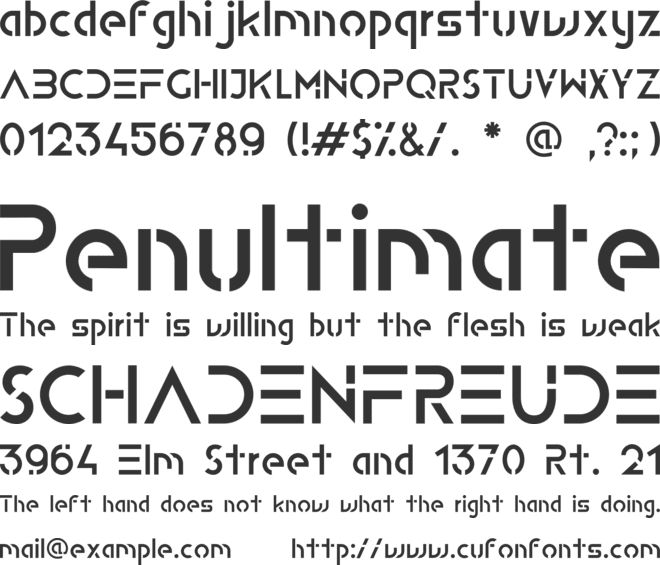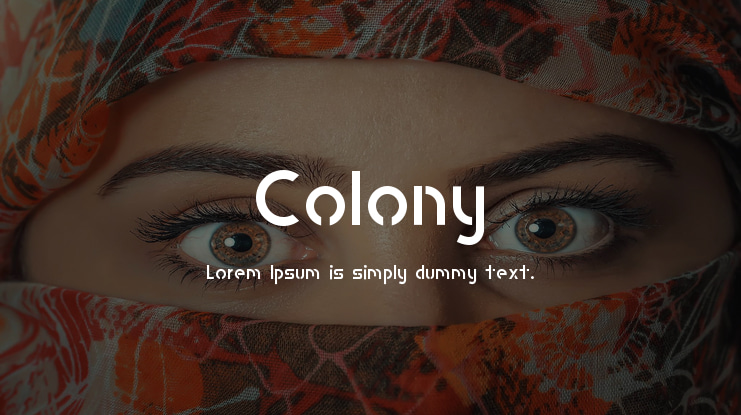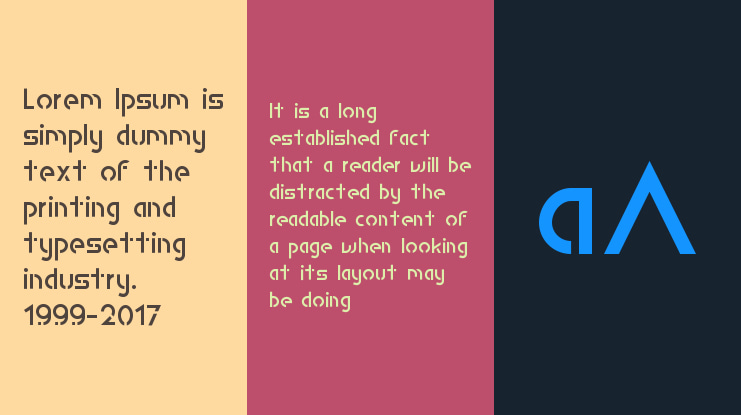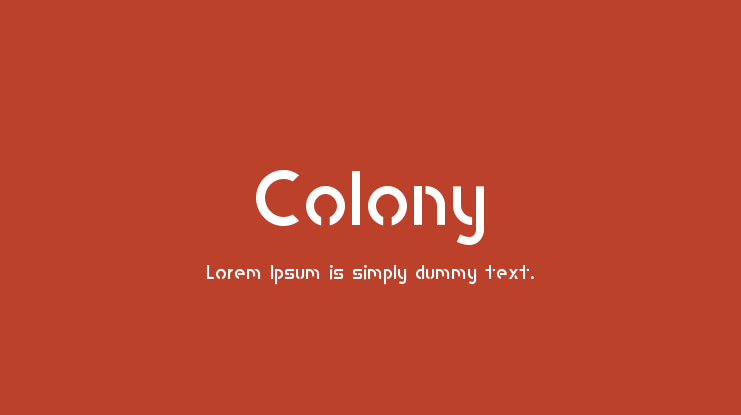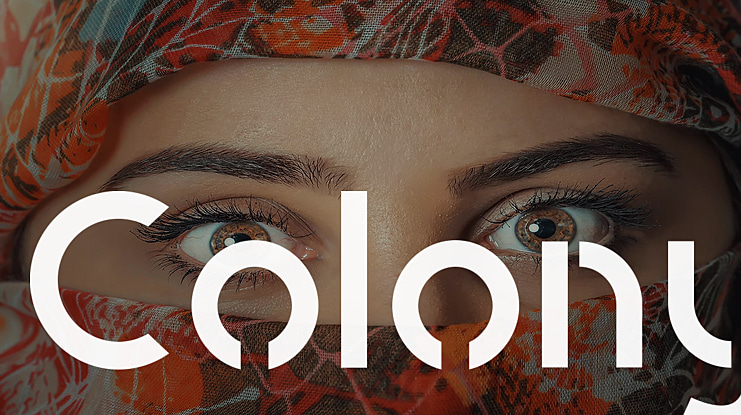
Colony Font
Colony has been designed as a header font. By taking elements from geometric and stencil fonts, i have created a clean header font with straight lines and curves. The stoke is the same to keep consistency. Some of the inspirations of this font include the Sci-fi genre, futurism and the space age.
This font is perfect for all your "out of this world" projects.